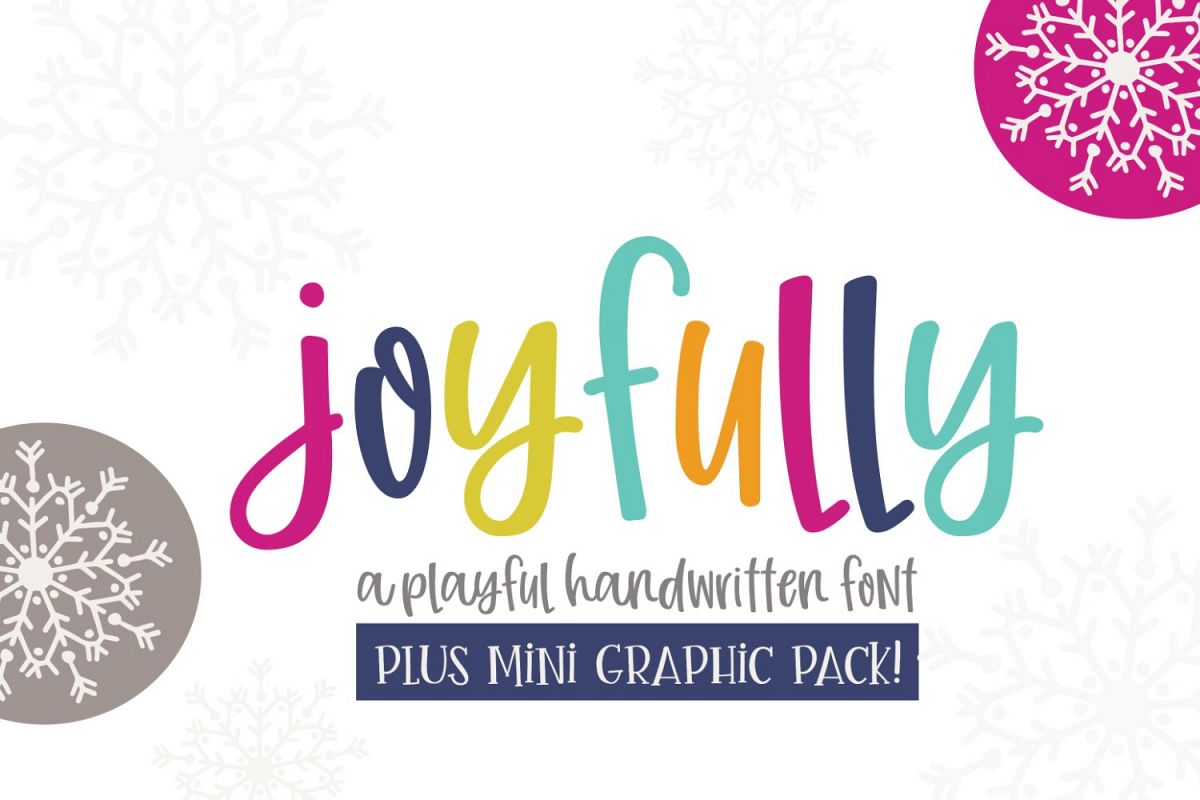
Joyfully Font & Graphics
Joyfully is a playful handwritten font that is perfect for many different design projects. It is a great font for Cricut and Silhouette crafters as I've made this font as smooth as possible for optimal cut performance! English and most Western European languages are supported.